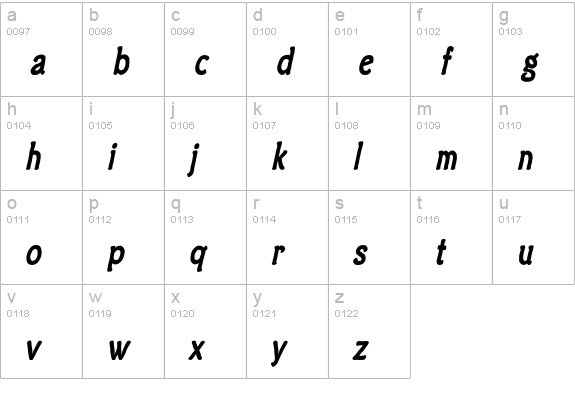
ClicheeBoldOblique Font Details
ClicheeBoldOblique font is a striking and dynamic typeface that exudes a sense of bold elegance and modernity. Its unique combination of bold weight and sleek oblique design makes it perfect for making a statement in any project. This font is ideal for headlines, titles, and other attention-grabbing design elements. What sets ClicheeBoldOblique font apart is its ability to effortlessly blend classic and contemporary styles, adding a touch of sophistication to any design. Whether used for branding, advertising, or editorial purposes, this font is sure to leave a lasting impression on viewers. Best of all, ClicheeBoldOblique font is available for free download at FontsMarket.com. So go ahead and enhance your designs with this eye-catching and versatile font today!